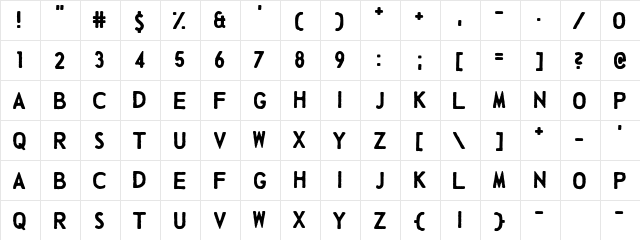
Talking Baseball Regular
| Designer | NAL |
Design Context for Talking Baseball Typeface
Talking Baseball takes a measured approach to typography — its balanced proportions and neutral character make it a reliable workhorse for both digital and print work.
Pro Tip: Pair Talking Baseball with a font of contrasting weight or personality to build a more expressive typographic hierarchy.